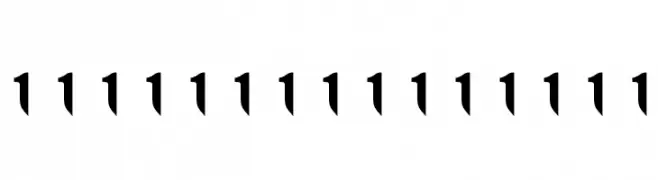
A decorative font inspired by traditional Gaelic script with bold, angular forms.
A bold, calligraphy-inspired font with sharp, angular strokes and ink splatter effects.
A bold, graffiti-inspired font with sharp, angular lines and an urban aesthetic.
A graffiti-inspired font with bold, irregular characters and a rebellious, urban style.